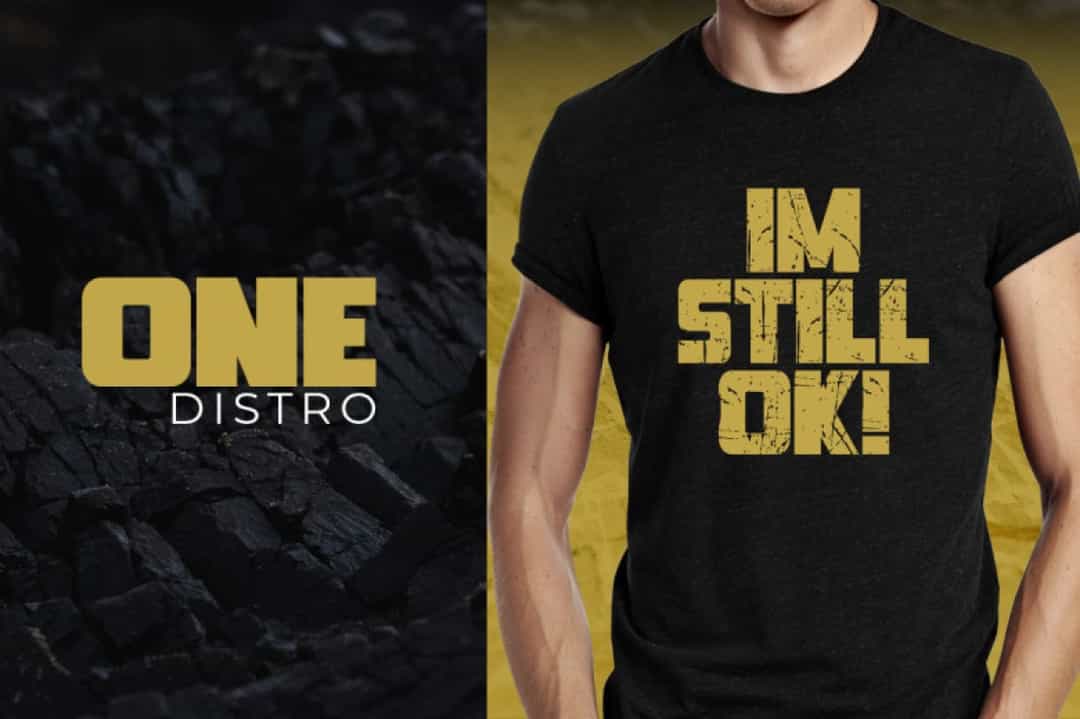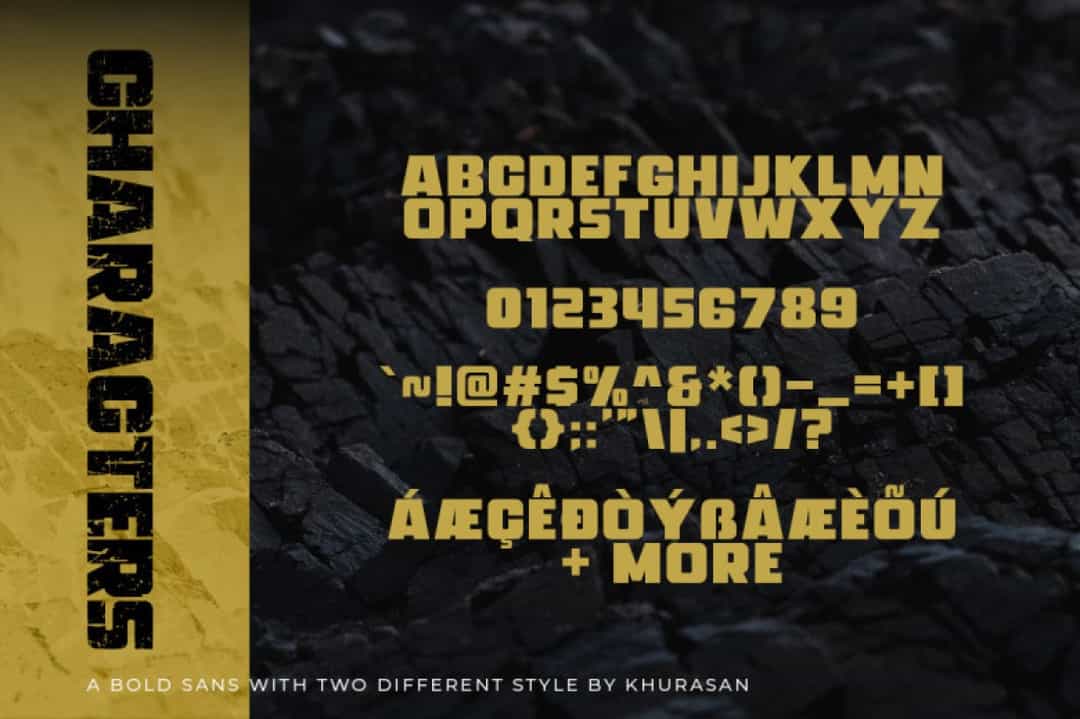
Madge Bold Font is an Sans Serif type with regular and rough styles that is ideal for posters, logos, magazine covers, banners, Tshirts headers or large scale artwork.